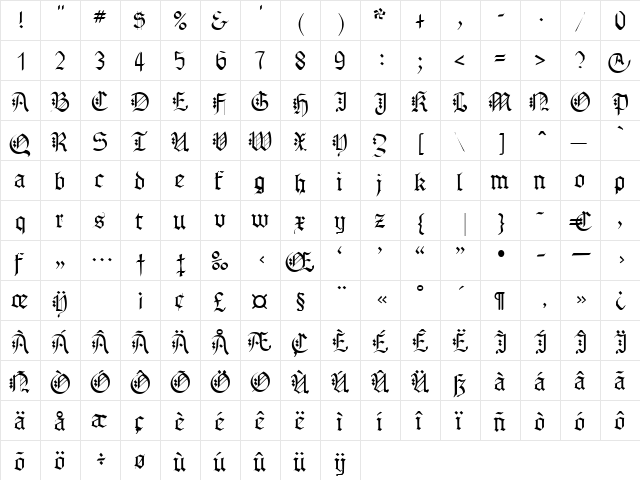
Reformator Regular Font Preview
Reformator Regular
Reformator Regular Font Details
Design Context for Reformator Typeface
Reformator is a composed and adaptable typeface that performs quietly and consistently across a wide range of design contexts.